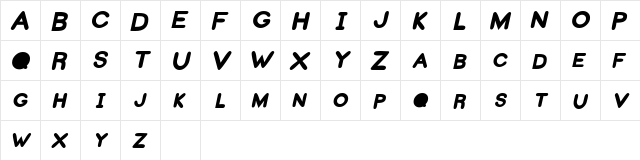
DunstanSCapsSSK BoldItalic
Design Context for DunstanSCapsSSK Typeface
DunstanSCapsSSK is a composed and adaptable typeface that performs quietly and consistently across a wide range of design contexts. The slanted form adds forward momentum and visual energy. The heavy weight commands attention and anchors typographic hierarchies.
Pro Tip: Use DunstanSCapsSSK for emphasis, pull quotes, and subheadings where its slanted energy can add rhythm to the layout.